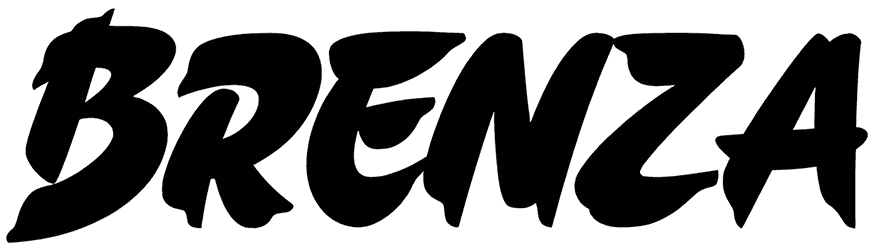
Brenza Font
Brenza, a fantastic brush font that can produce an urban aesthetic effect, could satisfy your upcoming illustrations. This script font would give your work a more jovial look and feel.
It has been prepared in two sets of capital letters to entertain your target audience on a high level despite lacking lowercase letters. Get your hands on this masterpiece right away to inject some flair into your street art posters, labels, T-shirts, and banner designs.